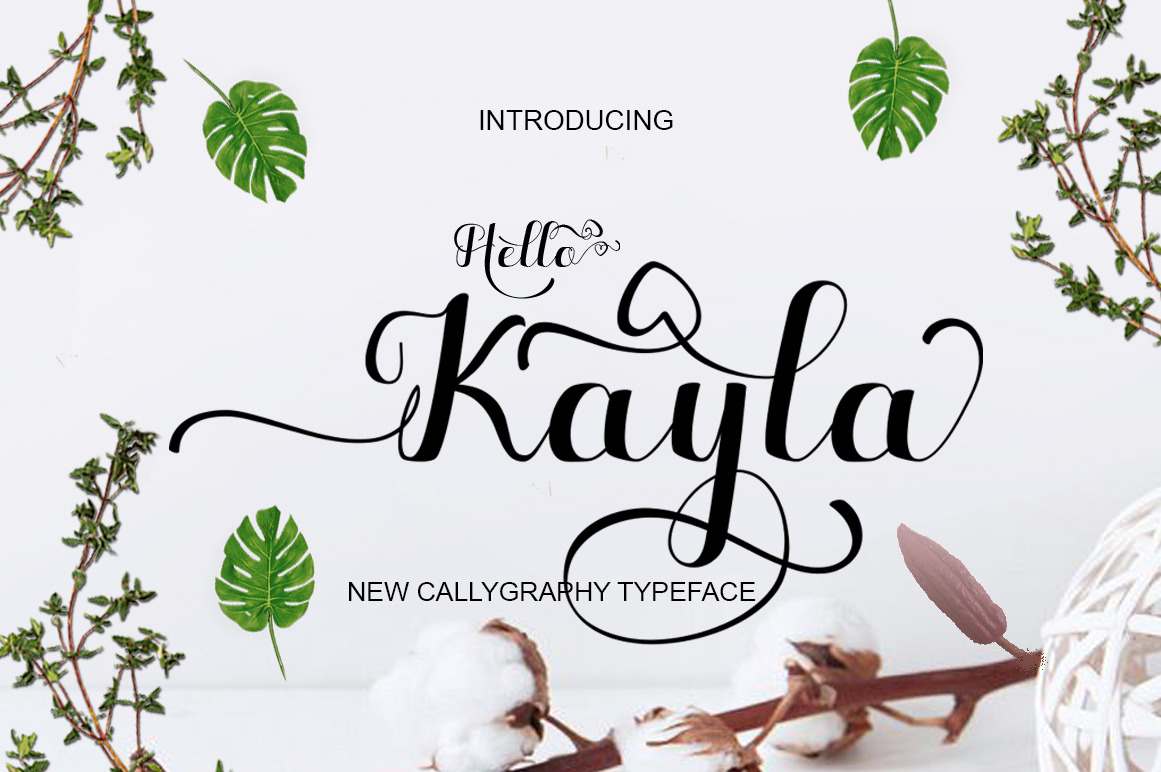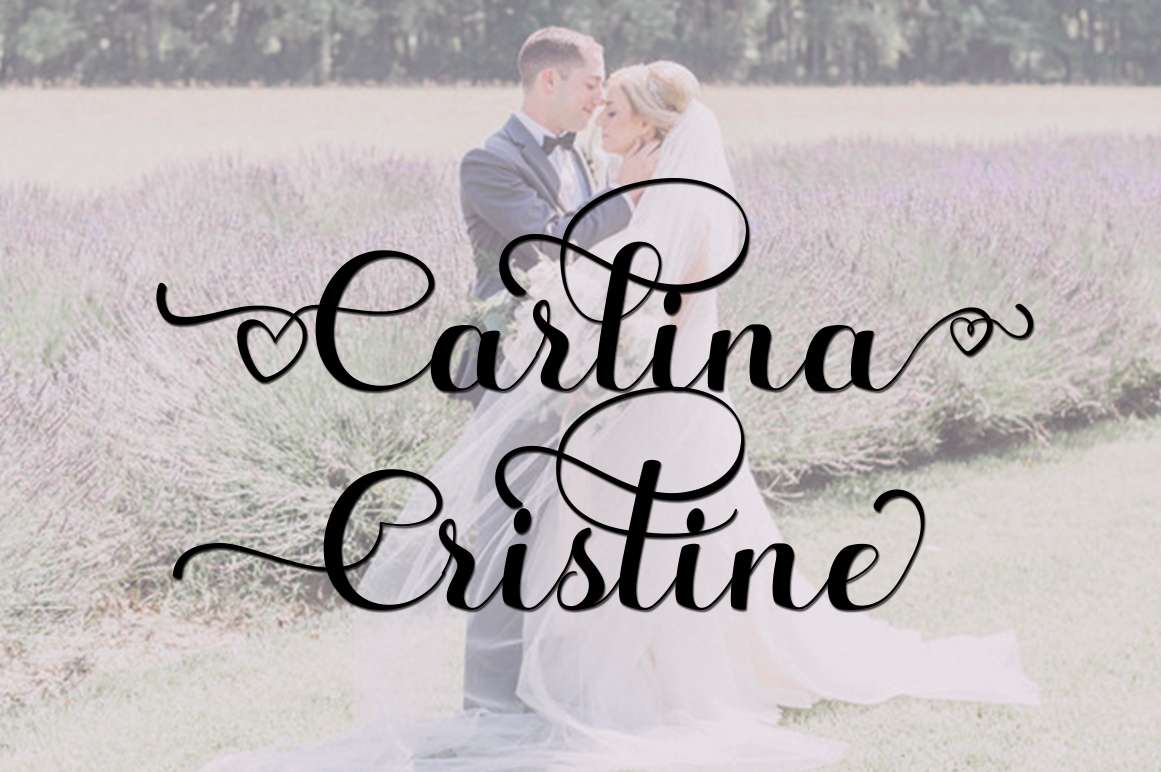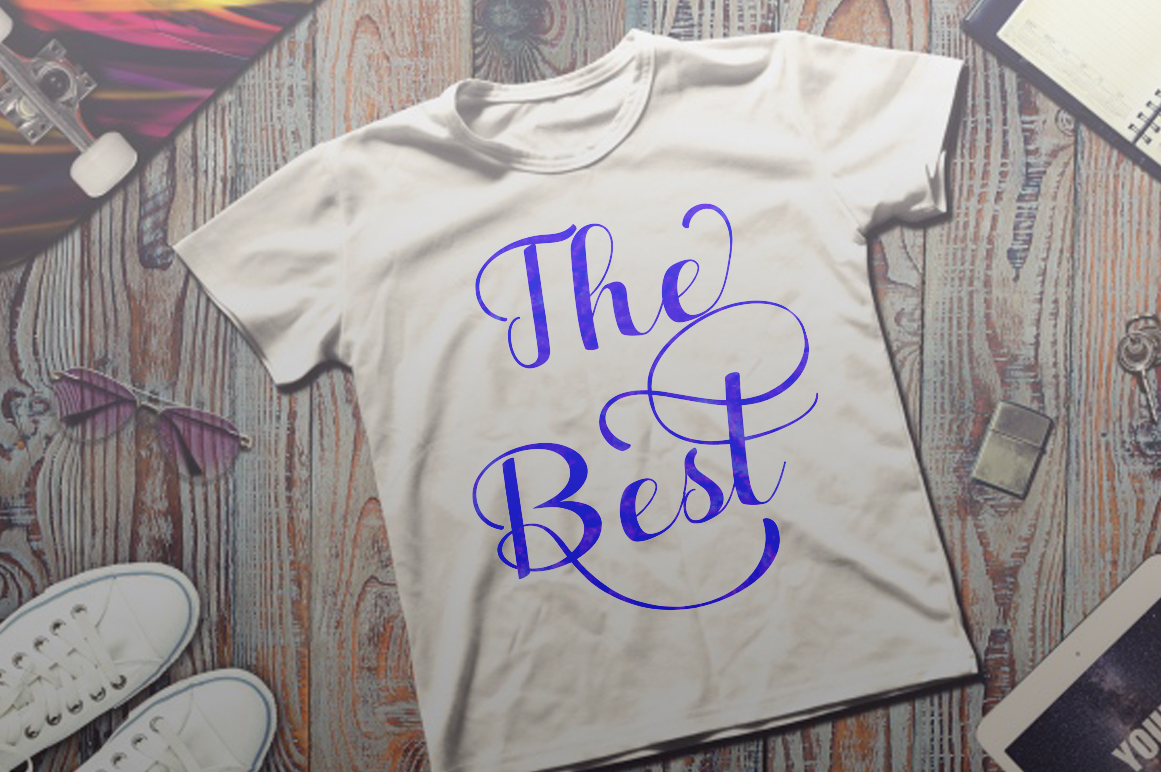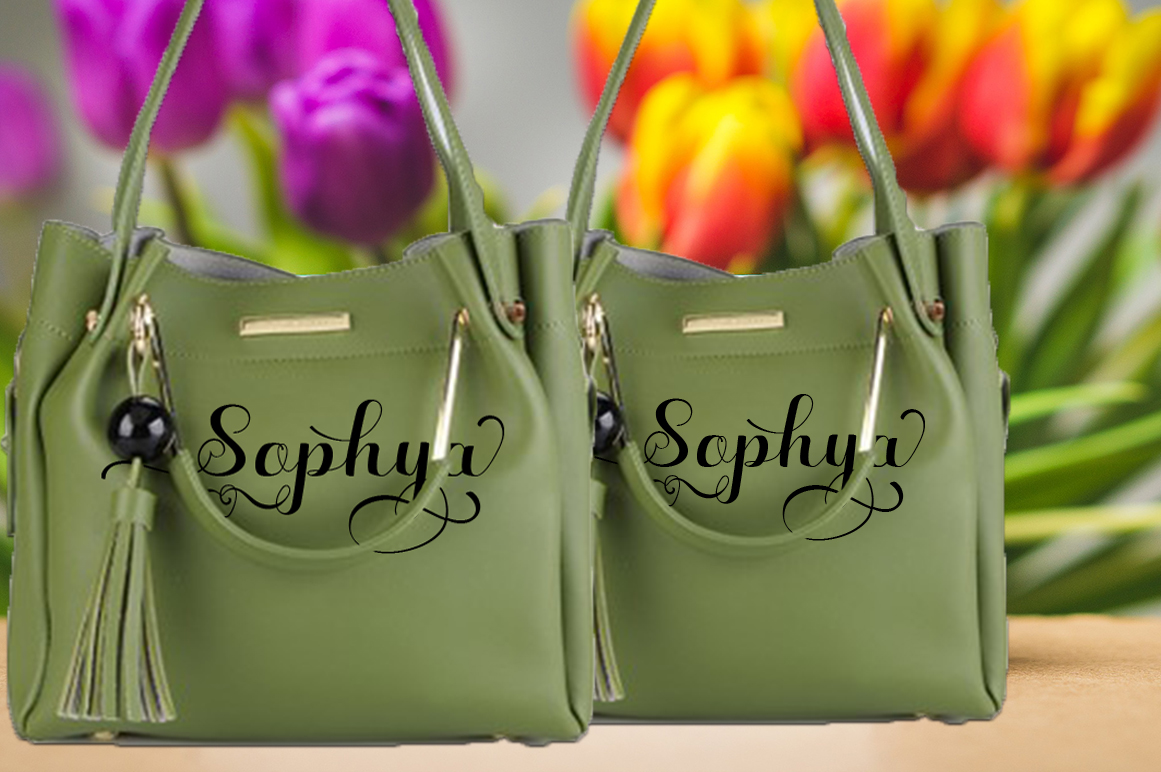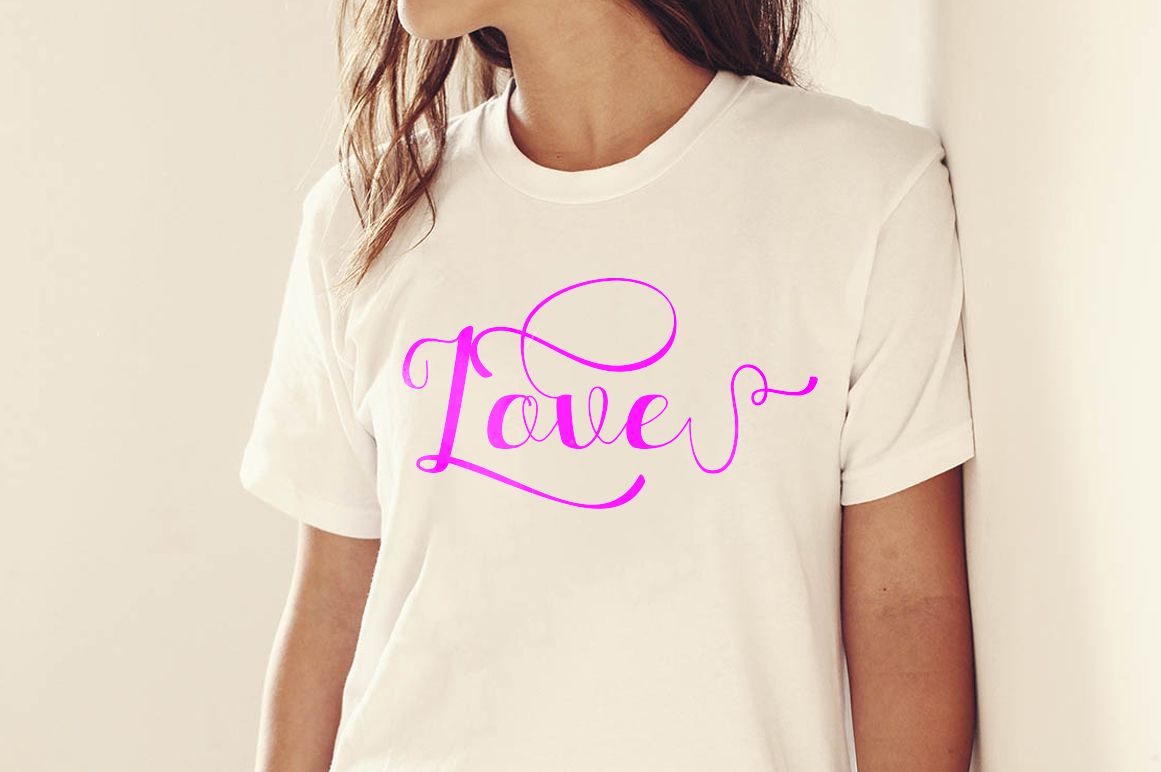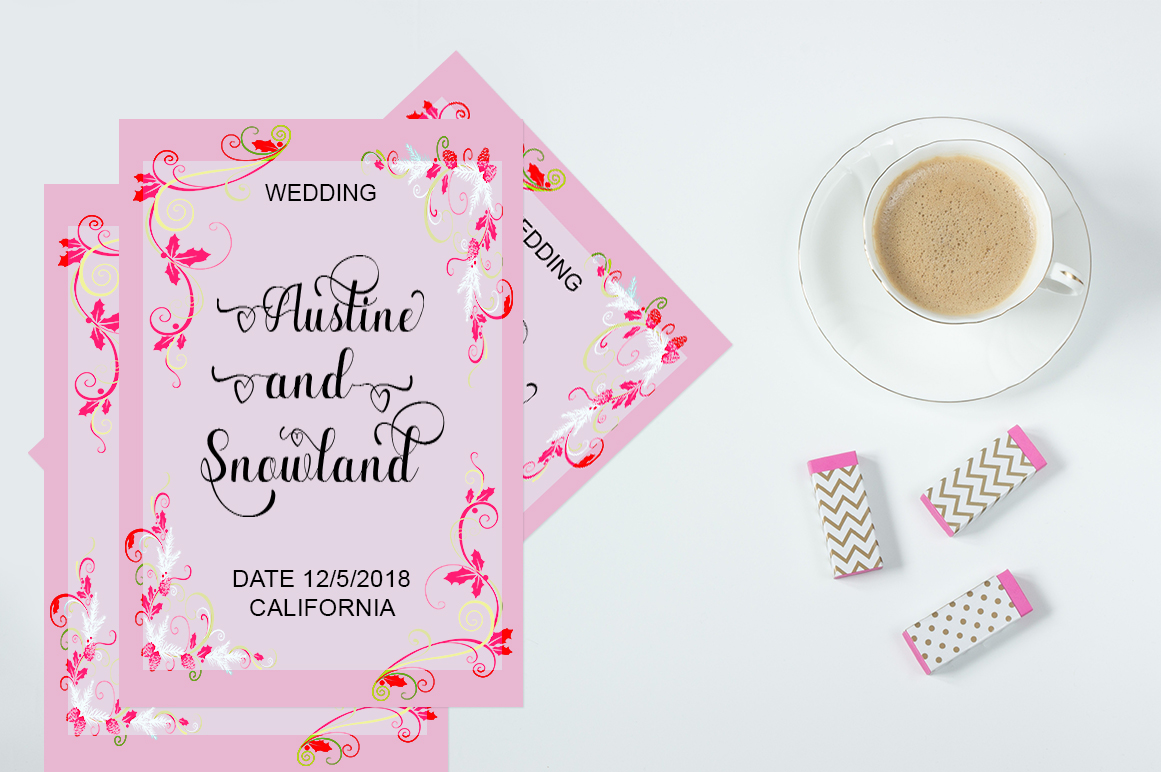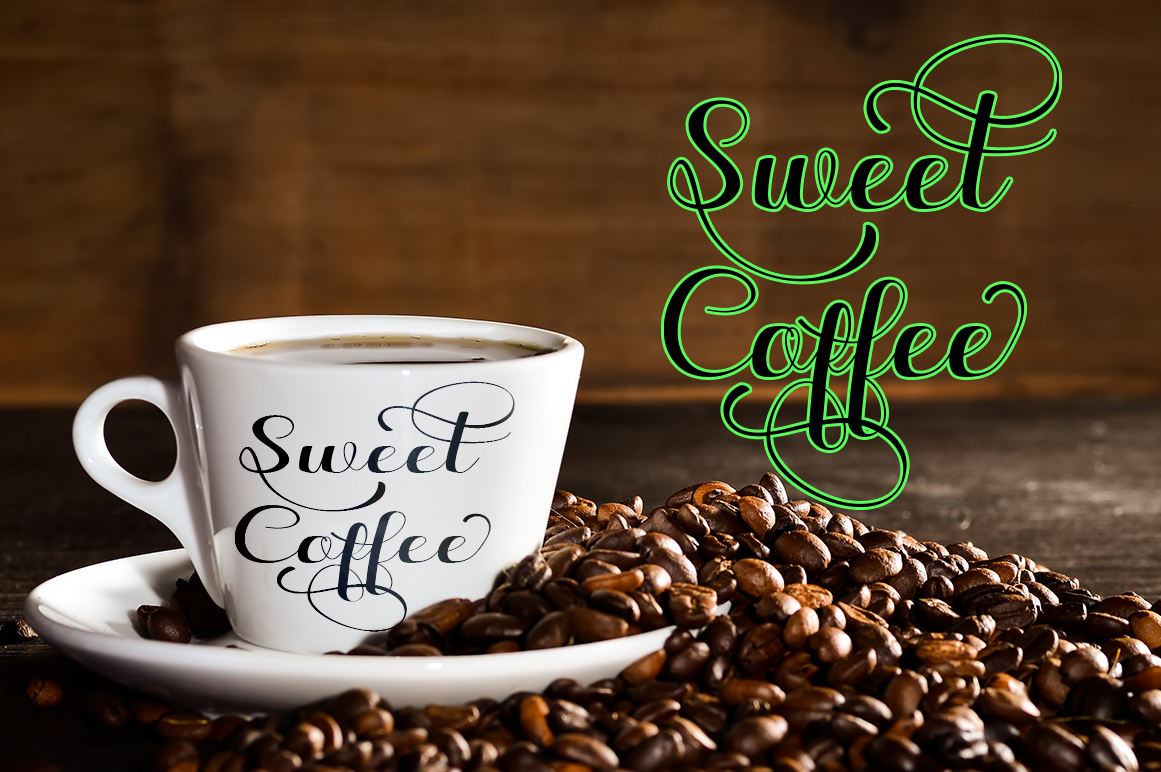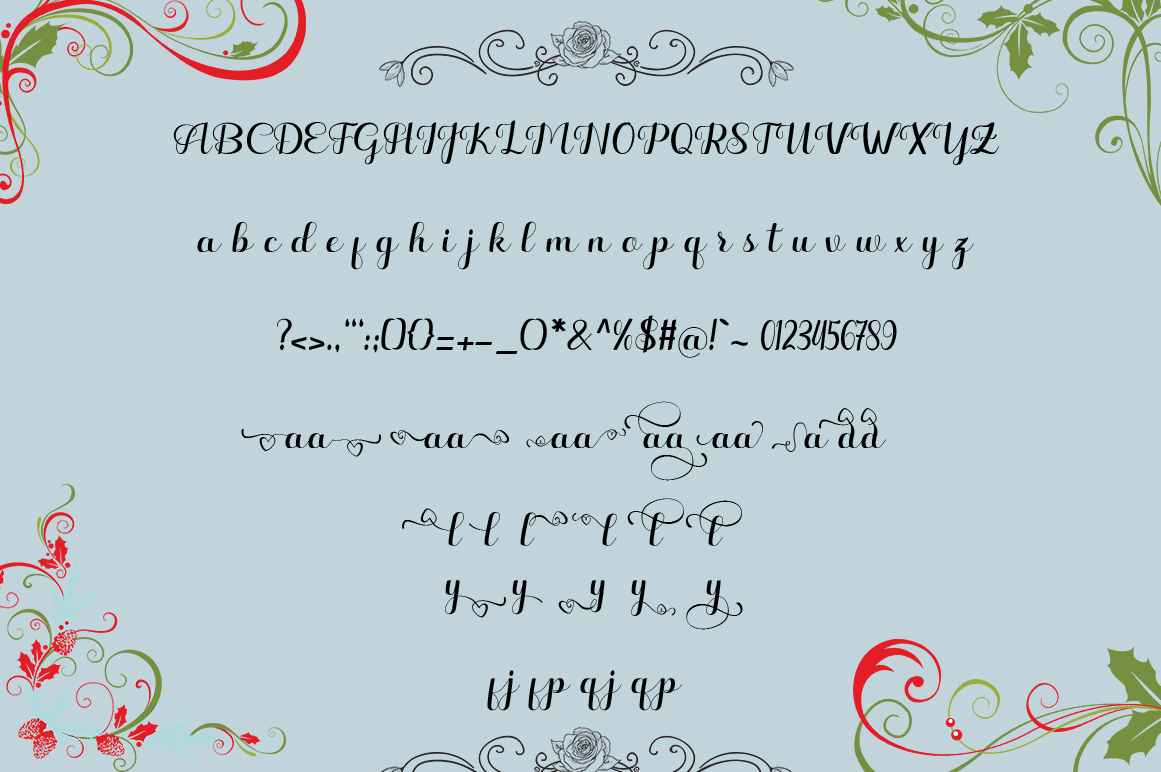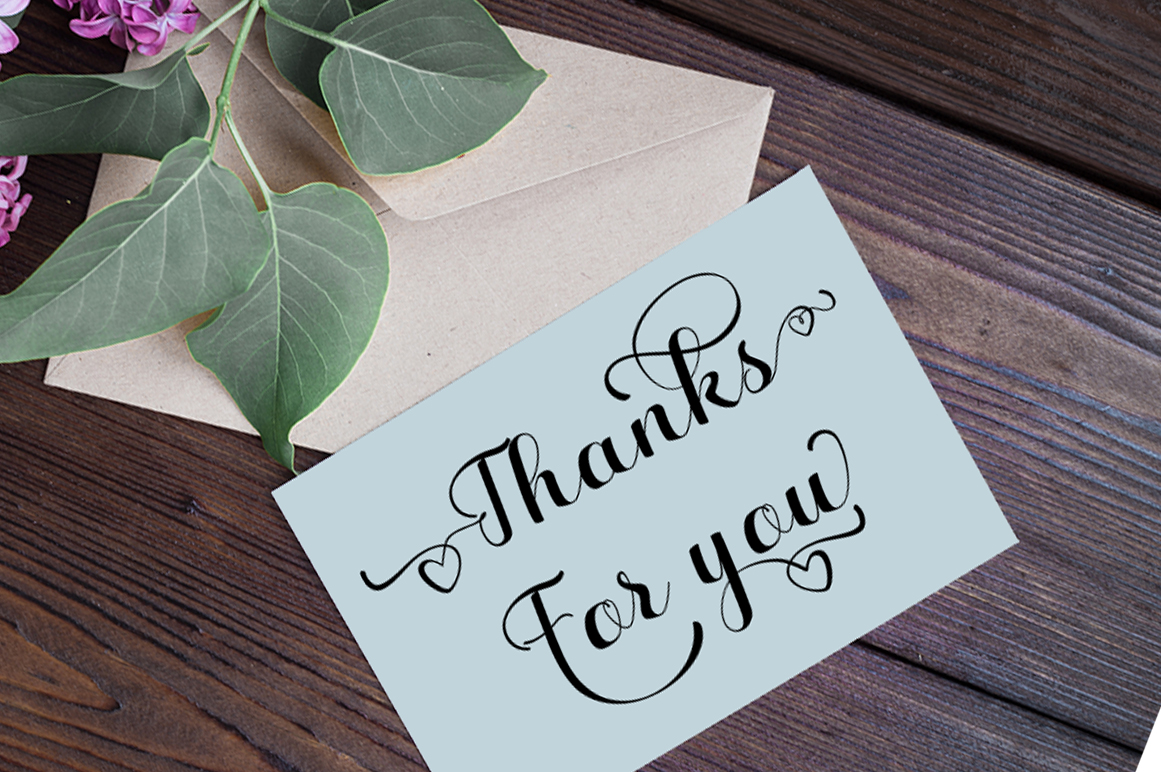
Hello Kayla Font
About Hello Kayla Font
Hello Kayla is a gorgeous, embellished script font with tons of alternates and swashes! This romantic and calligraphic font is suitable for a wide range of uses, but stands out in romantically inclined designs and styles.